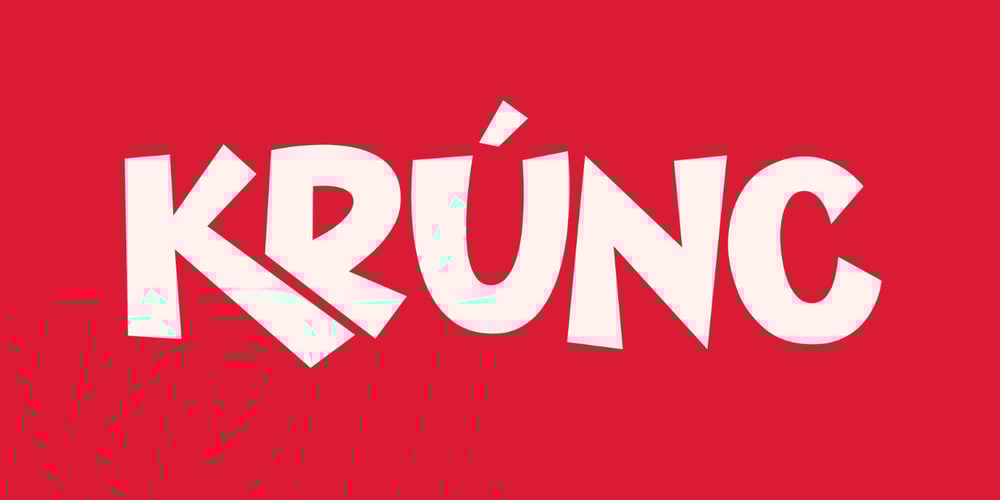
Krunc Font Family was designed by Saiful Anwar and published by Sealoung. Krunc contains 1 styles and family package options. Krunc Bold Display Typeface is designed to make a bold and impactful statement in any design project. With its strong, bold style, Krunc delivers a dynamic and eye-catching character, perfect for various modern design needs.Key Features: Bold, Striking Appearance: Thick and sturdy design, ideal for headlines, posters, logos, and elements that need to stand out. Unique Character: Each letter is crafted with attention to detail, providing a strong yet aesthetic impression. Versatile Use: Suitable for a wide range of design projects, including branding, advertising, social media, and more. Comprehensive Character Set: Includes uppercase letters, numbers, and punctuation for versatile design possibilities. Ligatures: Features stylish ligatures to enhance the visual appeal and readability of your text. Use Krunc Bold Display Typeface for:Captivating headlines for articles and blogsCreating eye-catching event postersBuilding a strong, recognizable brand identityDesigning effective and appealing advertising materialsMake every design project stand out with Krunc Bold Display Typeface, a font that combines strength and elegance in every character.